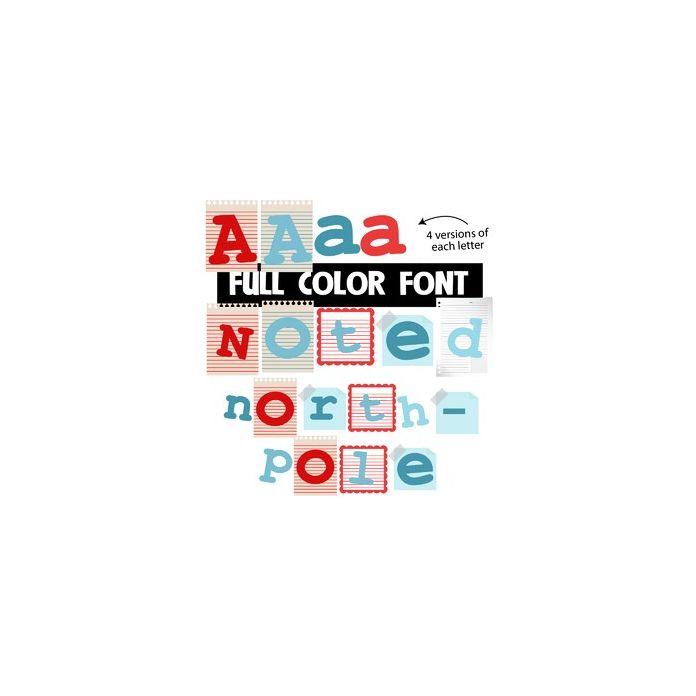
this full-color font features a very chilly color palette with a mix of lettering. There is an alt upper and lowercase with additional colors that you can access through Silhouette's glyph map.